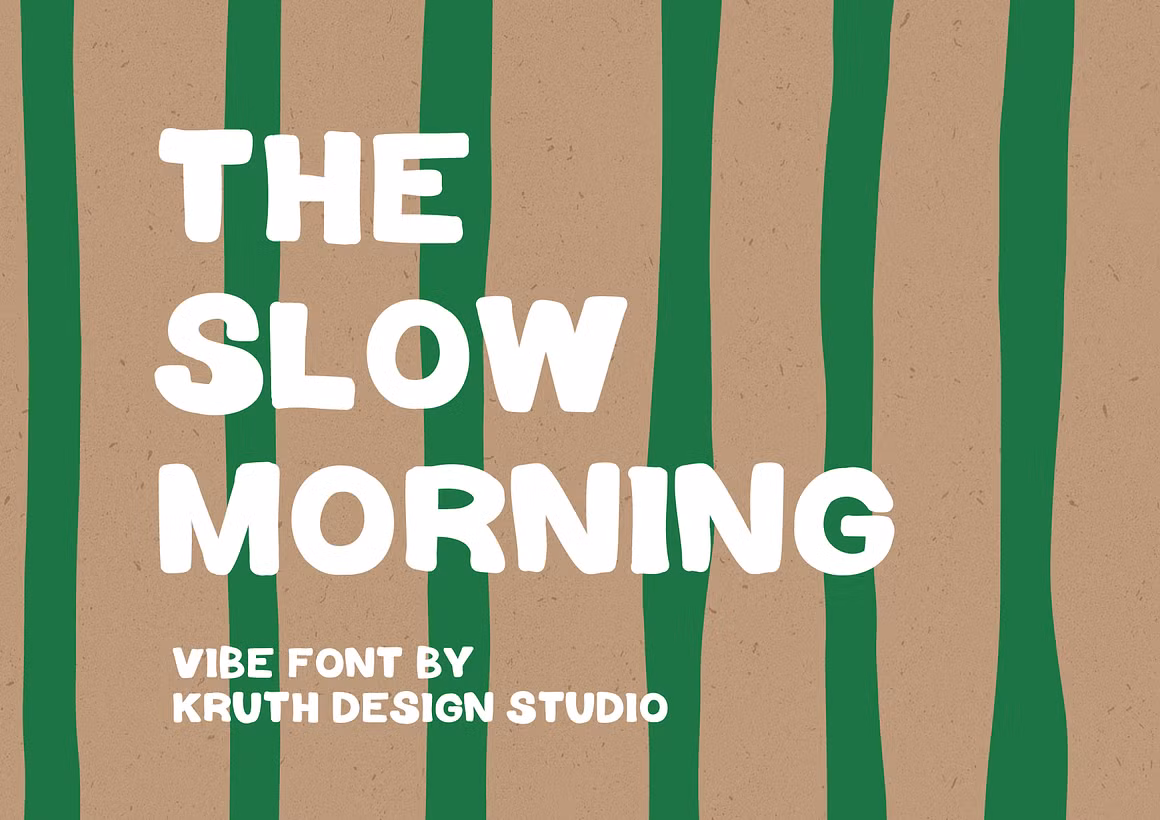
The Slow Morning font, designed by KruthDesign, is a stunning typeface that brings a touch of elegance and warmth to any project. With its bold and flowing script style, this font evokes a sense of sophistication while maintaining a friendly and approachable feel. Inspired by the gentle pace of a serene morning, The Slow Morning Bold Font Script is imbued with a sense of tranquility and charm, making it ideal for projects that aim to capture these emotions.
This font is perfect for a wide range of uses, from elegant wedding invitations and stylish branding to chic social media graphics and cozy home decor projects. Its versatile nature is further enhanced by a collection of delightful ligatures and alternate characters, offering endless possibilities to create unique and personalized designs that stand out.
Perfect For
– Elegant wedding invitations –
– Stylish branding and logos –
– Cozy home decor –
– Social media graphics –
Font Features
– Bold script style –
– Ligatures and alternates –
– Multilingual support –
Font Designer: KruthDesign
Publisher: KruthDesign
Font Style: Bold Script